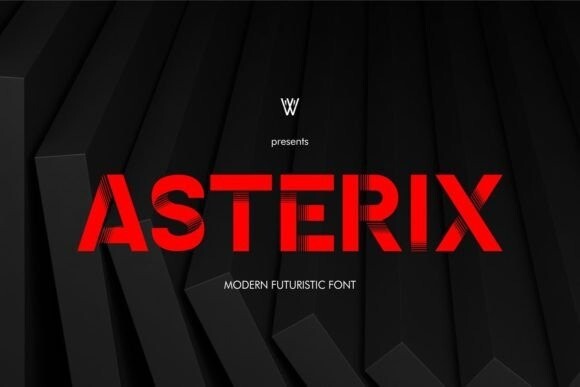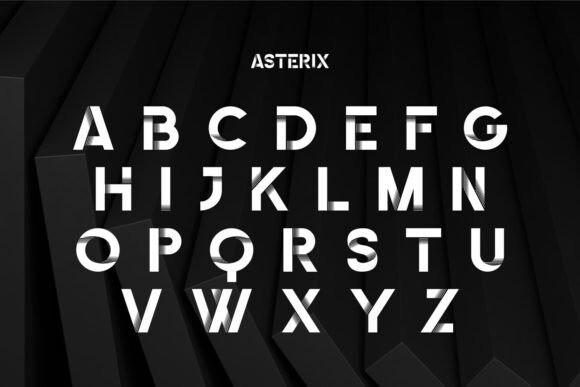
Asterix Display Font
Asterix Display fonts, comes with a shadow texture that can make the illusion of the eye look like a 3D visual.
Explore and discover your design style with Asterix fonts, let’s be creative.